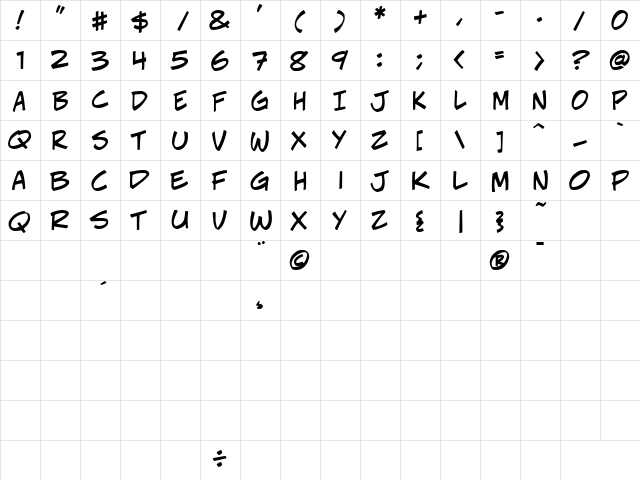
CCJeffCampbell Regular
Design Context for CCJeffCampbell Typeface
CCJeffCampbell is a composed and adaptable typeface that performs quietly and consistently across a wide range of design contexts.